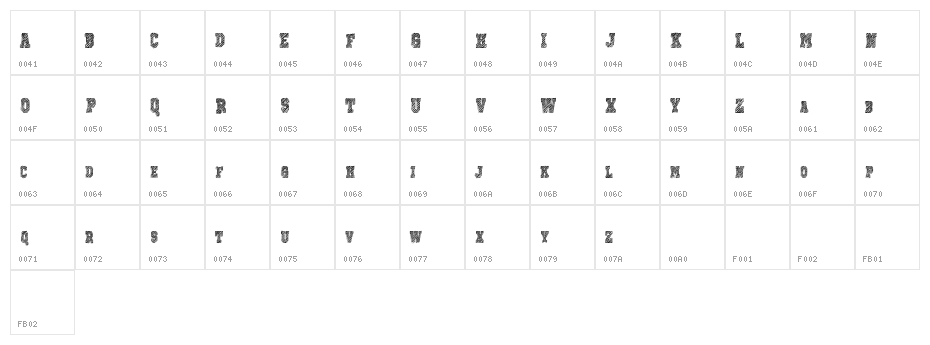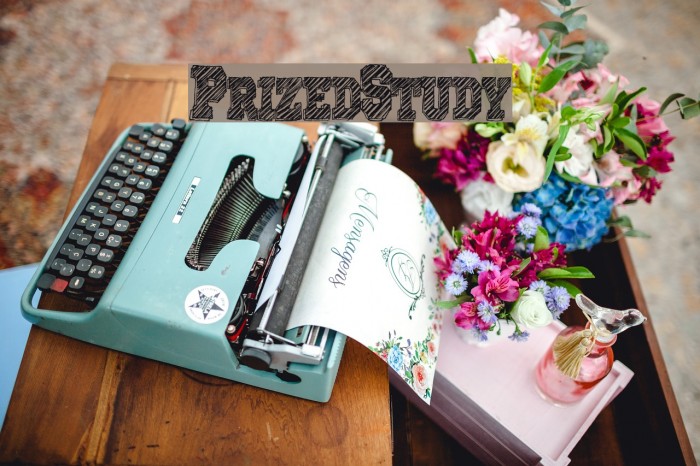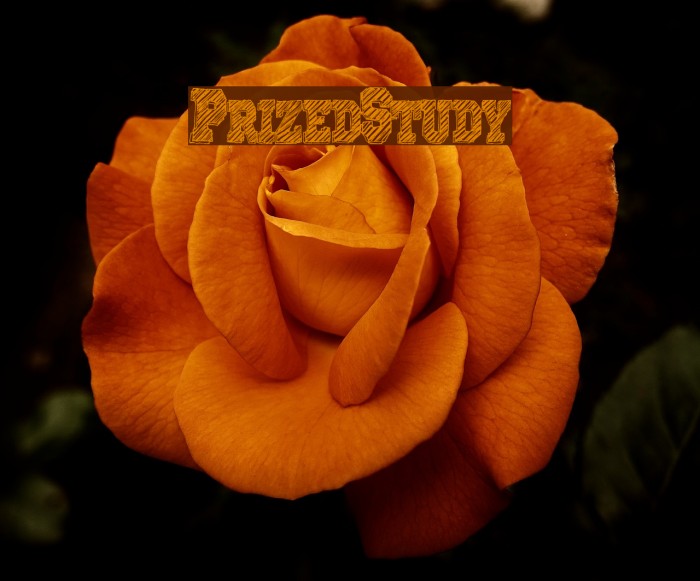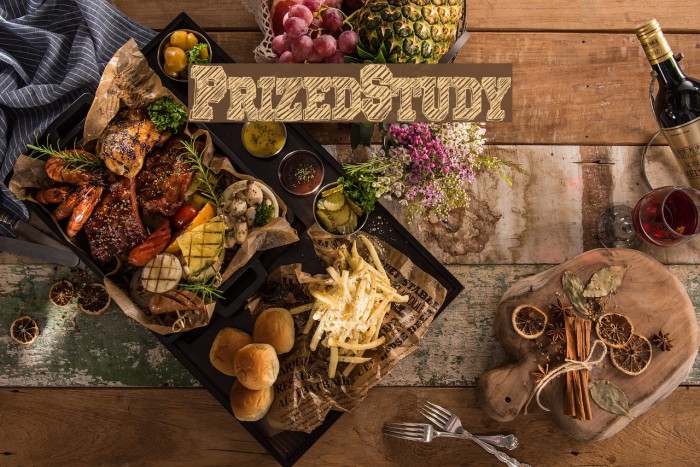
PrizedStudy Font
PrizedStudy Description
This font features a bold, decorative style with a unique cross-hatched texture filling each character. The uppercase letters are prominent and eye-catching, making them ideal for display purposes. The font has a playful yet structured appearance, with consistent line work that adds depth and dimension. The characters are evenly spaced, maintaining readability despite the intricate design. This font's distinctive style makes it suitable for creative projects where a standout typeface is desired.
| Proposed Projects | Ideal for posters, logos, and creative branding projects where a unique and bold typeface is needed. |